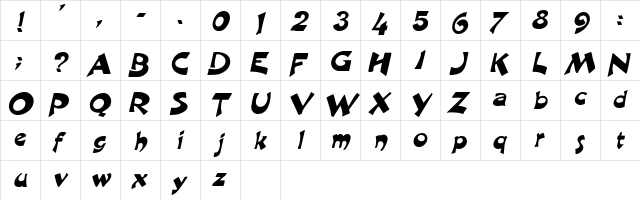
HepaticaDisplaySSK BoldItalic Font Preview
Design Context for HepaticaDisplaySSK Typeface
HepaticaDisplaySSK brings ornamental detail and strong personality to headlines and identities, where visual impact matters more than quiet functionality. The dynamic lean of this cut emphasises speed and emphasis in any layout. Its bold stroke weight gives it real presence on the page.
Font Pairing: Pair with a clean neutral sans-serif for body copy to let HepaticaDisplaySSK's character lead without overwhelming the composition.
Pro Tip: Treat HepaticaDisplaySSK as the centrepiece of your typographic hierarchy. One strong heading set in a decorative face can carry an entire layout.